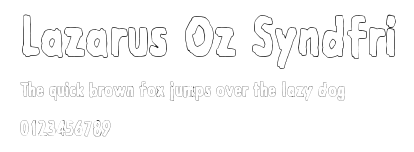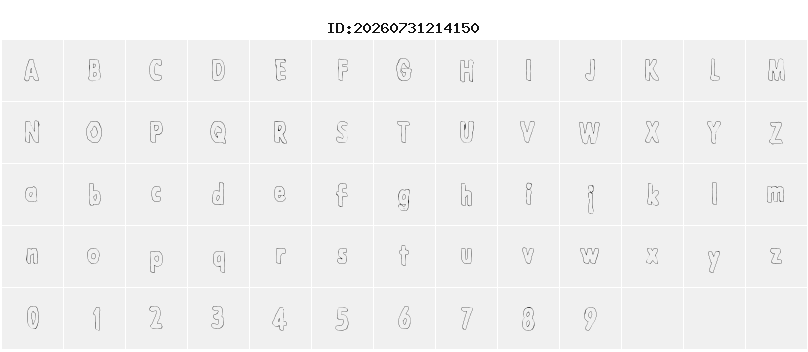
• Font Name: Lazarus Oz Syndfri
About Lazarus Oz Syndfri.ttf
Lazarus Oz Syndfri.ttf is a modern, elegant sans-serif font designed for ultimate readability and visual harmony. Perfect for branding, headlines, web design, and print materials.